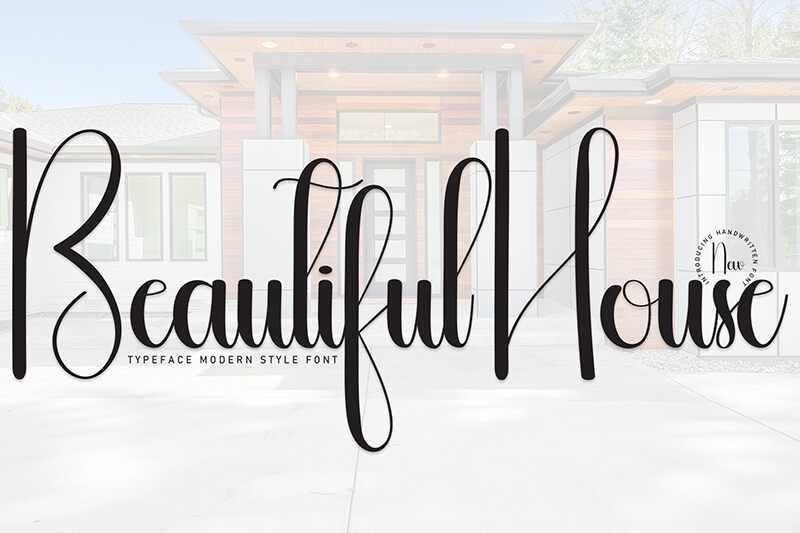
Beautiful House
Beautiful House font is an ornate, elegant calligraphy font by Andi Moz. Presented in a condensed style, this font shines with decorative flourishes and each character’s sophisticated aesthetic. Connecting strokes and dancing baselines will turn all typographies into something of beauty without compromising on the legibility aspect.
Use this free calligraphy display font to create titles for advertising campaigns’ printed or online posters, social media platforms, personal stationery projects, invitation cards (birthdays, weddings), magazines, logotype ideas, business cards and so much more.